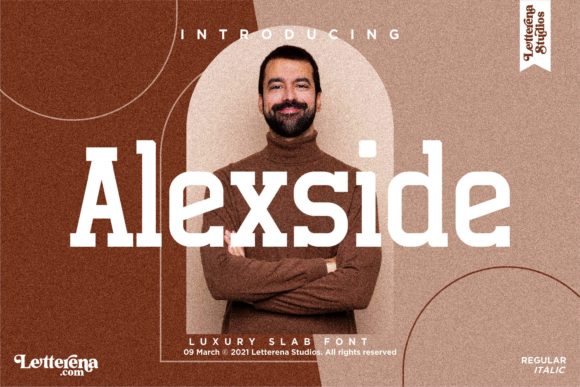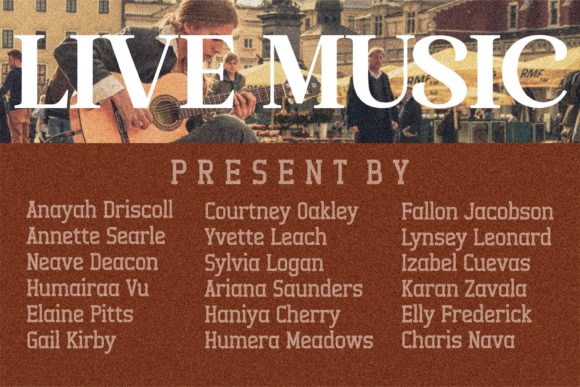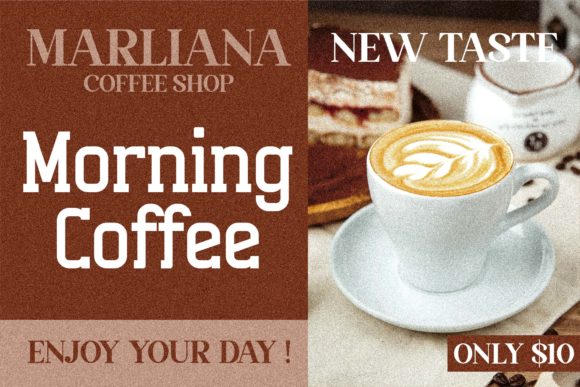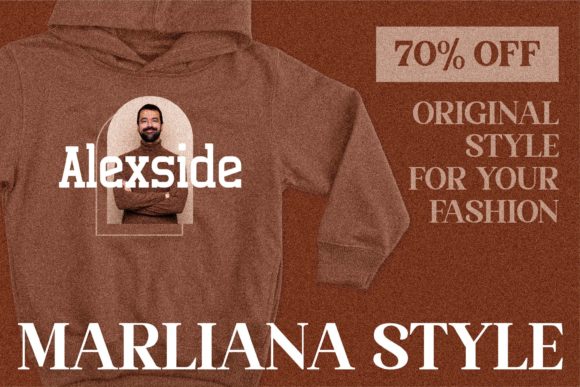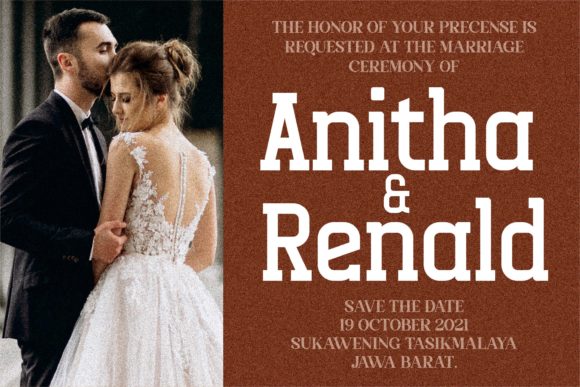
Alexside: A Cool and Bold Slab Serif Font
Alexside is a distinctive slab serif font that combines coolness with boldness. This expertly designed typeface offers designers a powerful tool for creating impactful typography across a wide range of creative projects.
Key Features of Alexside
- Cool Design: Features a trendy and appealing appearance
- Bold Character: Incorporates strong, eye-catching letterforms for maximum impact
- Slab Serif Structure: Maintains the characteristic thick, rectangular serifs typical of slab serif fonts
- Versatile Application: Suitable for a variety of design ideas
- Out-of-this-World Look: Designed to make creations appear extraordinary
Ideal Uses for Alexside
Alexside’s unique characteristics make it particularly well-suited for:
- Eye-catching headlines and titles
- Branding and logo design
- Poster and advertisement layouts
- Social media graphics and digital content
- Packaging design for products aiming for a cool, bold look
When incorporating Alexside into your designs, consider the following tips:
- Use for headlines or short blocks of text to maximize its cool and bold impact
- Experiment with different sizes to highlight the font’s unique details
- Consider pairing with simpler sans-serif fonts for body text to create contrast
- Take advantage of its versatility across various creative ideas
Alexside is an excellent choice for designers looking to add a cool and bold slab serif to their typographic toolkit. Its ability to create an out-of-this-world look makes it stand out in the world of typography. Whether you’re working on logo designs, creating layouts for advertising, or developing branding for various projects, Alexside offers the perfect blend of coolness and boldness.
Add Alexside to your designs and explore how it can bring a cool and bold edge to your creative ideas. From striking headlines to impactful branding elements, this font provides the tools to create gorgeous typography that stands out with its unique blend of coolness and boldness across a variety of design contexts.